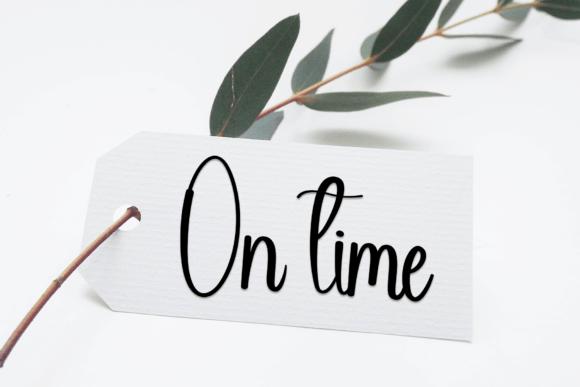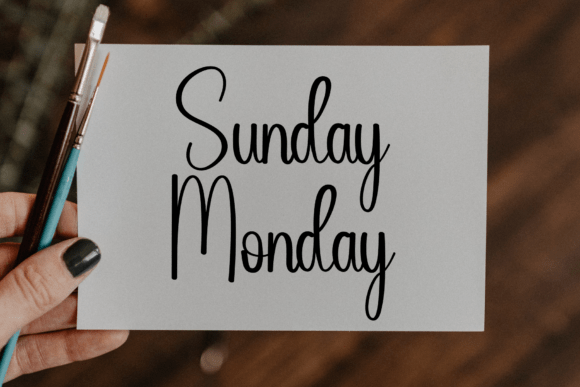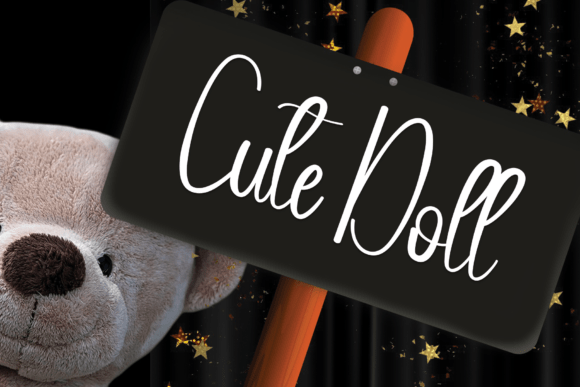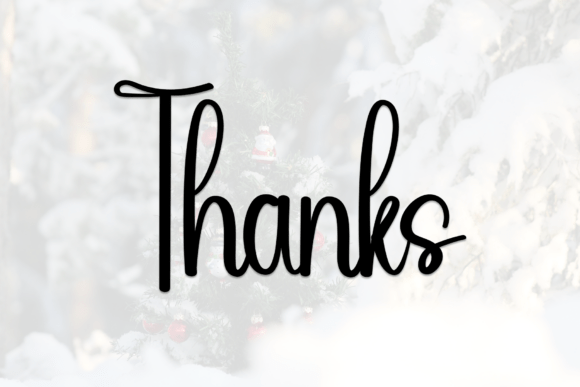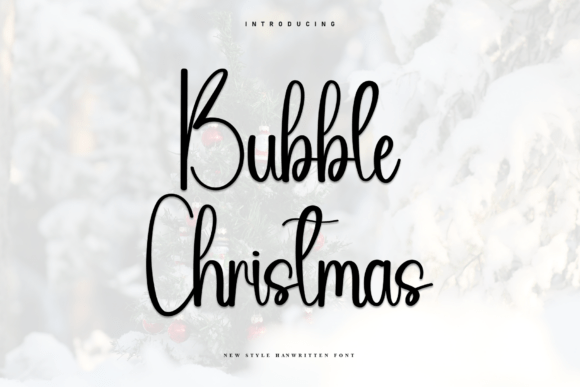
Bubble Christmas Font: A Sweet and Beautiful Handwritten Font for Your Holiday Designs
Are you looking for a font that captures the magic and warmth of the holiday season? Look no further than the Bubble Christmas font! This sweet and beautiful handwritten font is perfect for adding a cozy accent to any design project you wish to create. In this article, we’ll take a closer look at the Bubble Christmas font, its features, and how you can use it to create stunning holiday designs.
What is Bubble Christmas Font?
Bubble Christmas is a modern handwritten font that features characters that dance along the baseline, giving it a playful and whimsical feel. The font is designed to evoke the nostalgia and warmth of the holiday season, making it perfect for creating Christmas cards, holiday-themed crafts, and festive designs.
Key Features of Bubble Christmas Font
- Handwritten style: The Bubble Christmas font features a beautiful handwritten style that adds a personal touch to any design project.
- Dancing characters: The characters in the font dance along the baseline, giving it a playful and whimsical feel.
- Cozy and festive: The font is designed to evoke the warmth and nostalgia of the holiday season, making it perfect for creating festive designs.
- Easy to read: Despite its playful style, the Bubble Christmas font is easy to read, making it perfect for use in titles, headings, and body text.
How to Use Bubble Christmas Font in Your Designs
The Bubble Christmas font is versatile and can be used in a variety of design projects, including:
- Christmas cards: Create beautiful and festive Christmas cards using the Bubble Christmas font.
- Holiday crafts: Add a personal touch to your holiday crafts, such as gift tags, decorations, and DIY projects.
- Festive designs: Use the Bubble Christmas font to create festive designs for social media, blogs, and websites.
- Party invitations: Create playful and festive party invitations using the Bubble Christmas font.
Tips for Using Bubble Christmas Font
- Pair with complementary fonts: Pair the Bubble Christmas font with complementary fonts to create visual interest and hierarchy in your designs.
- Experiment with colors: Experiment with different colors and textures to add depth and interest to your designs.
- Use in combination with graphics: Use the Bubble Christmas font in combination with graphics and illustrations to create visually appealing designs.
The Bubble Christmas font is a sweet and beautiful handwritten font that’s perfect for adding a cozy accent to any design project. With its playful and whimsical feel, it’s ideal for creating festive designs, holiday crafts, and Christmas cards. Whether you’re a designer, crafter, or DIY enthusiast, the Bubble Christmas font is a great addition to your font collection.